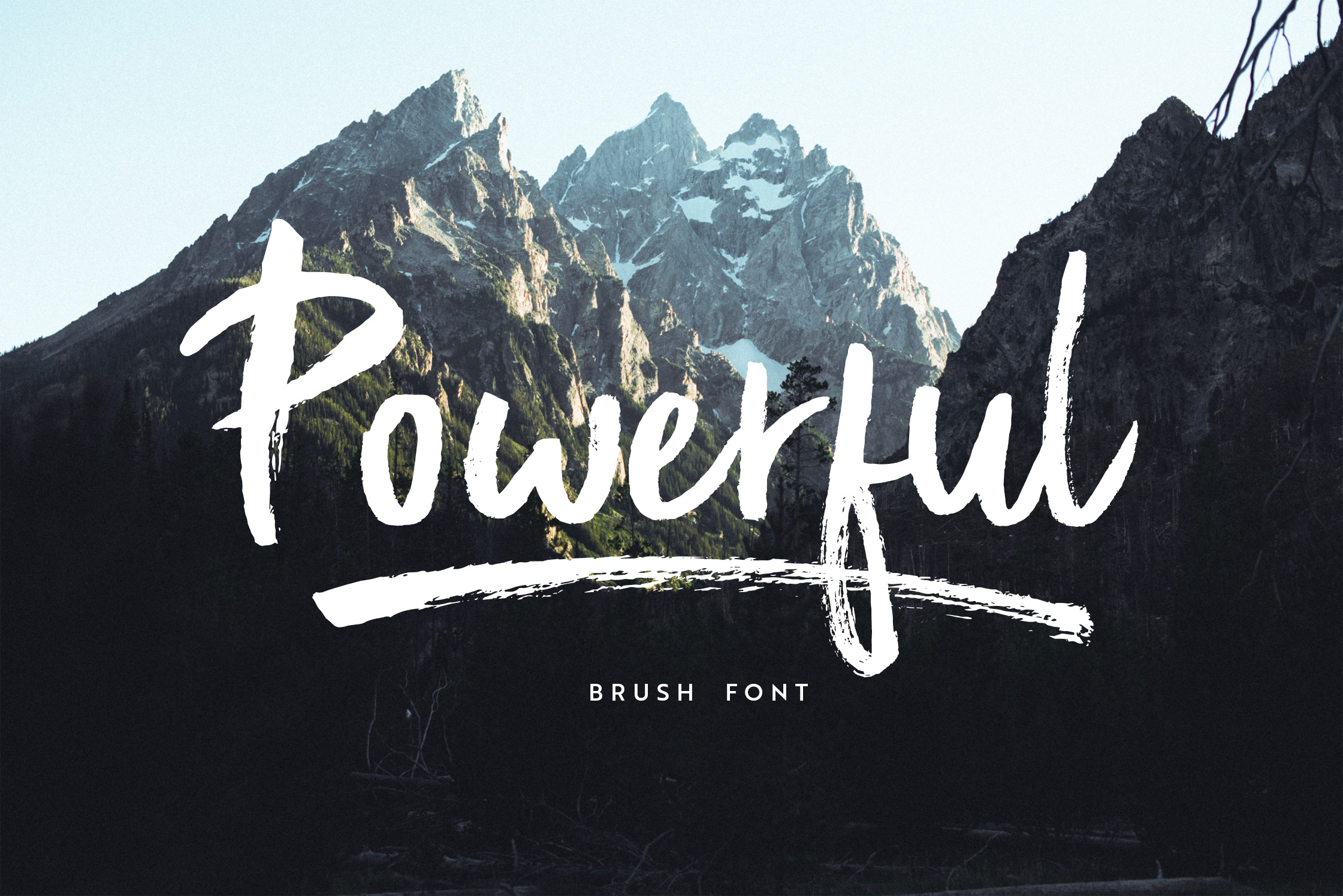
Powerful | Brush font
Introducing "Powerful" hand painted brush font A dry texture . Powerful bold and very intelligent font deliver a clear message, create beautiful hand-made typography.ideal for logo, merchandise, apparel, fashion, social media, marketing, advertising, websites, quotes, branding, greeting cards & posters or anything which needs power.
Powerful-comes as a single font Stylistic full set of lower & uppercase letters, numerals, punctuation this font contains Alternates & Ligatures.To Access Alternate Characters you need opentype capable software (Photoshop/Illustrator). Includes (TTF & OTF fonts).
Powerful SWASHES-set of 18 swashes & 8 splatters,Extra power for unique finishing touches to your work.